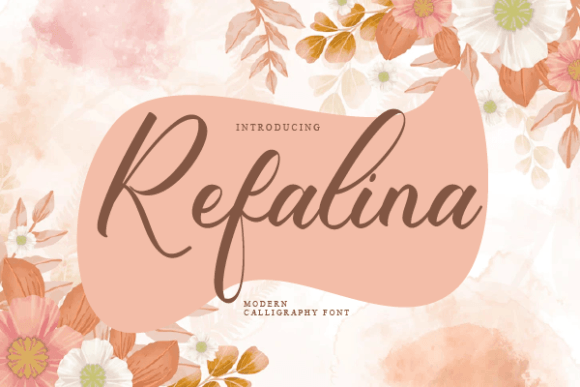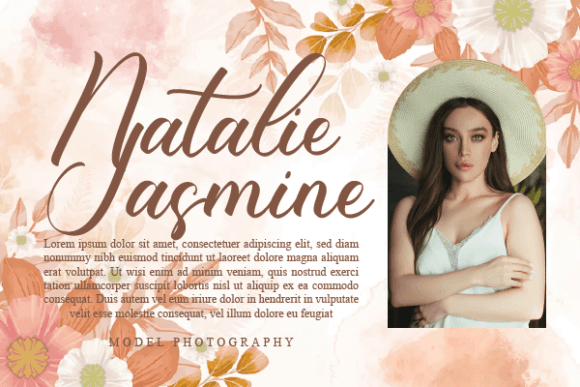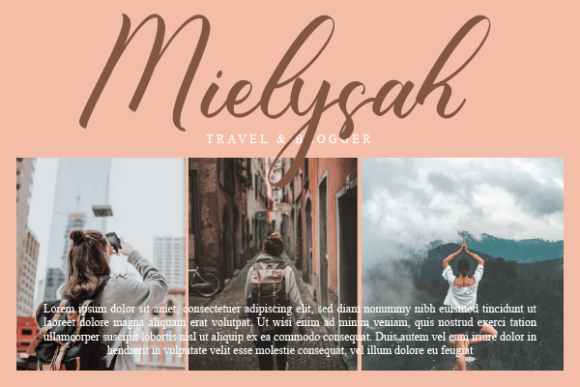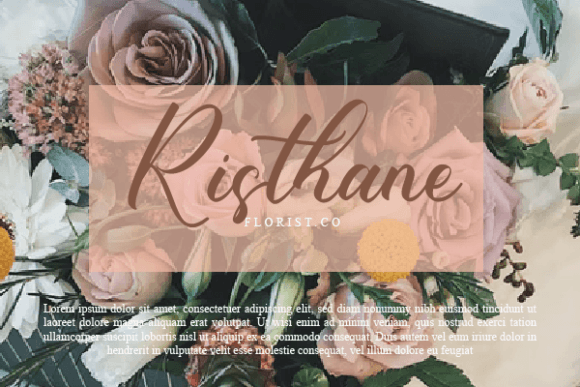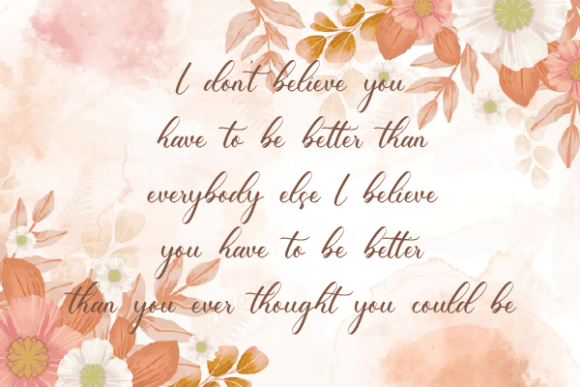
Refalina Font
About Refalina Font
“Refalina” is presented as a modern handwritten script, crafted to convey a natural, stylish, and personalized feel. With its versatility, this font is described as an ideal choice for extraordinary projects that demand a handwritten touch. Its adaptable style is suggested for a variety of creative applications, including wedding invitations, thank you cards, quotes, greeting cards, logos, business cards, and any design seeking a customized and unique aesthetic.
The natural and stylish attributes of Refalina make it well-suited for projects that require a handwritten feel. Whether utilized in wedding invitations or greeting cards, the font’s modern script style adds a touch of elegance and warmth, enhancing the overall visual appeal and providing a personal touch to your designs.
Refalina’s versatility is emphasized by its ability to seamlessly adapt to various design needs. From logos to business cards, the font’s customized and personalized touch makes it suitable for projects where conveying a sense of individuality and uniqueness is essential. Its fluid and contemporary script style allows it to integrate into different design contexts with ease.
The handwritten quality of Refalina is particularly advantageous for creative projects that necessitate a customized and human touch. The font’s inherent charm adds authenticity to designs, making them feel more approachable and relatable.
In summary, Refalina is not just a font; it’s a modern and versatile design tool ready to enhance your extraordinary projects. Whether you’re working on wedding invitations, quotes, or business cards, let Refalina be the font that adds a natural and stylish handwritten feel, providing a customized touch to your creative endeavors.